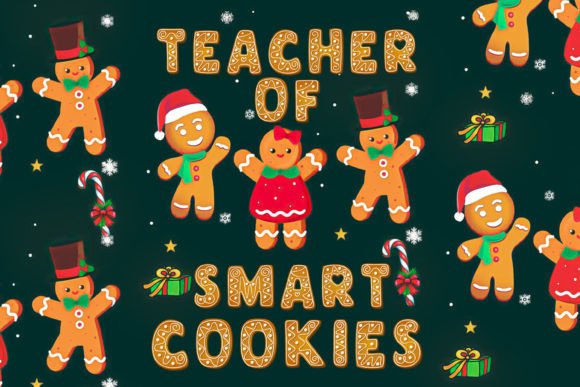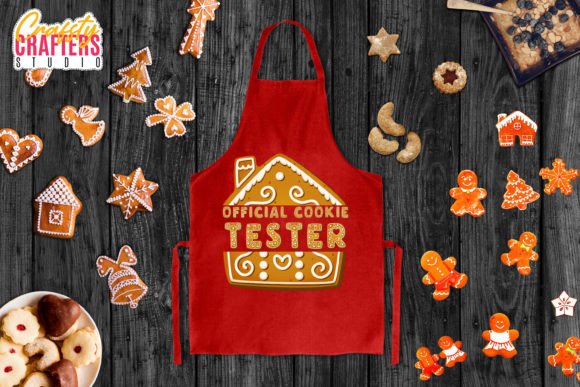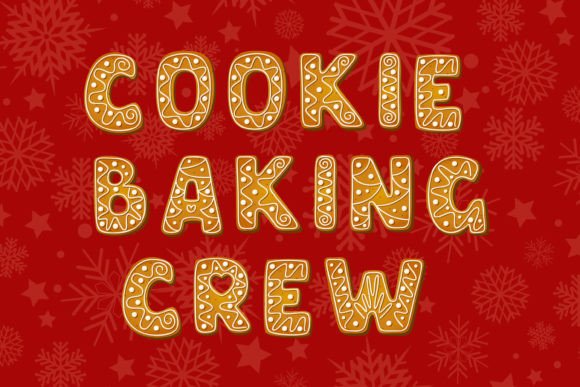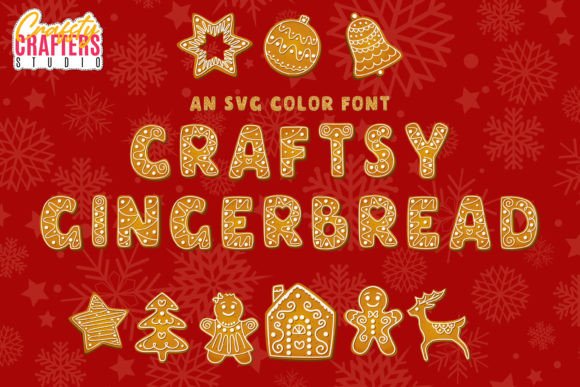
Craftsy Gingerbread Font: Add a Delicious Touch to Your Crafting Projects
Are you looking for a unique and mouth-watering font to add a personal touch to your crafting projects? Look no further than the Craftsy Gingerbread Font! This superb gingerbread cookie-lettered color font is perfect for crafters and designers who want to create personalized and eye-catching designs. In this article, we’ll explore the features and benefits of the Craftsy Gingerbread Font and provide you with tips on how to use it in your crafting projects.
What is Craftsy Gingerbread Font?
Craftsy Gingerbread Font is a color font (Opentype-SVG) that features a delightful gingerbread cookie-lettered design. This font is perfect for crafting projects that require a personalized and delicious look. With its unique and playful design, the Craftsy Gingerbread Font is sure to add a touch of warmth and personality to your projects.
Benefits of Using Craftsy Gingerbread Font
So, why should you use the Craftsy Gingerbread Font in your crafting projects? Here are just a few benefits:
- Unique and Playful Design: The Craftsy Gingerbread Font features a one-of-a-kind gingerbread cookie-lettered design that’s sure to add a touch of personality to your projects.
- Personalized Look: With the Craftsy Gingerbread Font, you can create personalized designs that are perfect for special occasions, such as holidays, birthdays, and weddings.
Tips for Using Craftsy Gingerbread Font
Here are some tips for using the Craftsy Gingerbread Font in your crafting projects:
- Use it for Holiday Projects: The Craftsy Gingerbread Font is perfect for holiday projects, such as Christmas cards, Halloween decorations, and Thanksgiving signs.
- Experiment with Different Colors: The Craftsy Gingerbread Font is a color font, which means you can experiment with different colors to create unique and eye-catching designs.
- Pair it with Other Fonts: Try pairing the Craftsy Gingerbread Font with other fonts to create a unique and personalized look.
- Use it for Branding: The Craftsy Gingerbread Font can also be used for branding, such as creating a logo or label for your business.